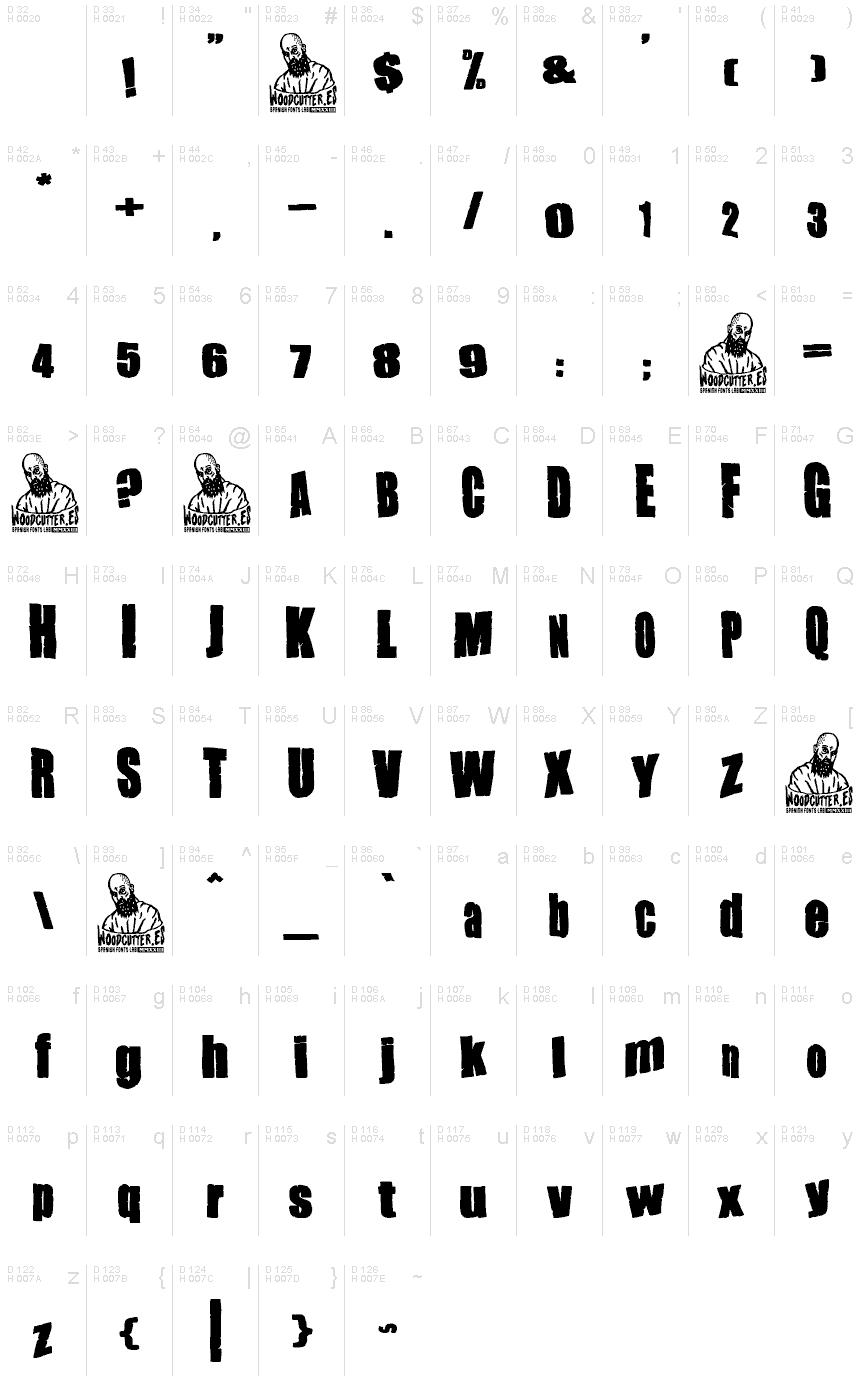
Dirty Grunge Fiesta
Dirty Grunge Fiesta font by Woodcutter is a distorted display typeface with a bold weight. It has a condensed width, and it brings in it all the disheveled aesthetics of the grunge style. The uppercase letters have an unusual shape crafted for distinctive looks that bring an urban character and oddly attractive ruggedness to the text.
Use this free font in album covers, posters, tattoo designs, book covers, social media posts, skate brands’ identities, video titles, CD covers, music videos subtitles artwork etc. Each letter has its own personality; when combined together – they create outstanding results that nobody will forget easily.